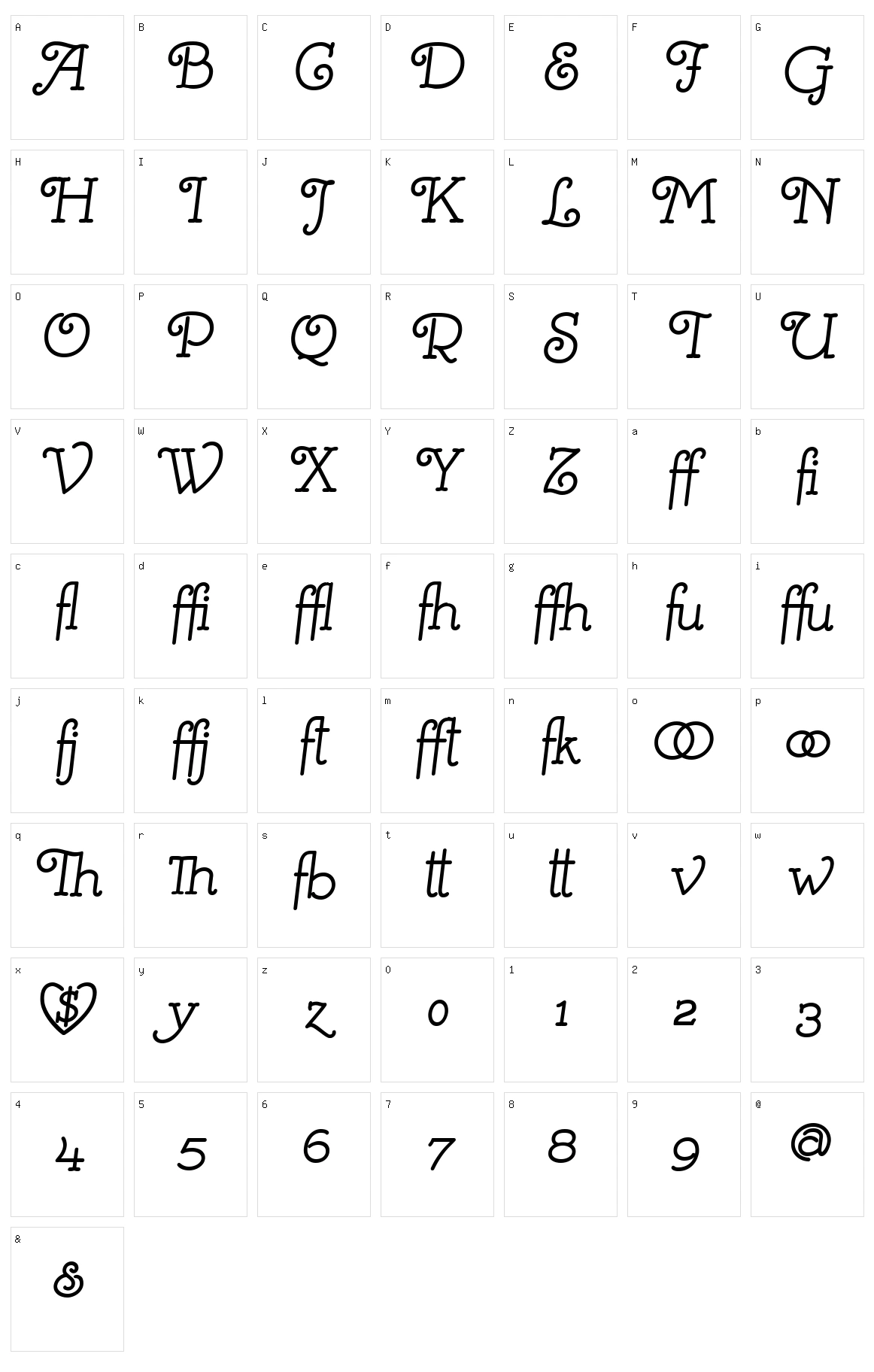
Mistress
This is version 2.0 of Mistress Script. In this version I have a cofession to make: the shapes were originally based on a font called Splate designed as an OEM for greeting cards. My perspective is that Mistress Script is an experiment in combining elements from three common categories of today's typography: the typewriter, the modern elegance of Swiss sans strokes, and plain ol' calligraphy. This experiment was mainly to debunk two theories: 1) The great Jan Van Krimpen's famous belief that "calligraphic influence in type should be no more than an underlying force," and 2) The common belief being passed on nowadays in most design school around the world, teaching that typewriter serifs convey a blank emotional state that has more to do with machinery than with human touch. Hopefully you'll see the success that I believe was achieved with this experiment.